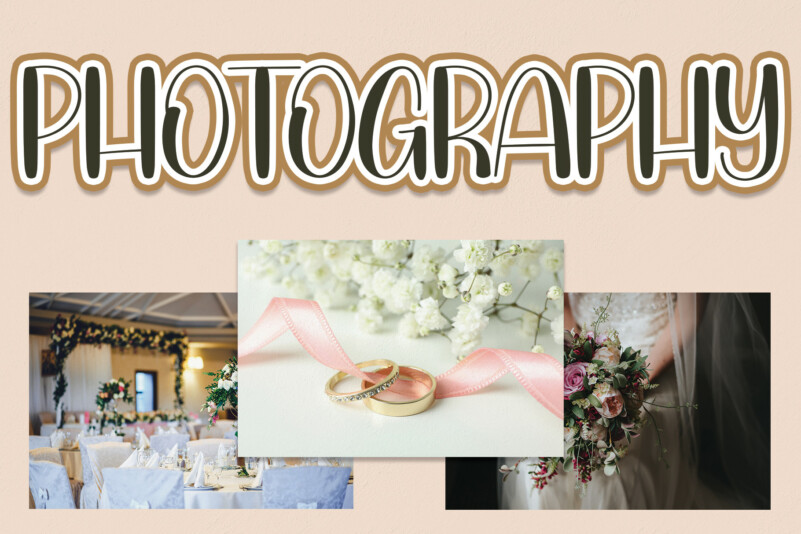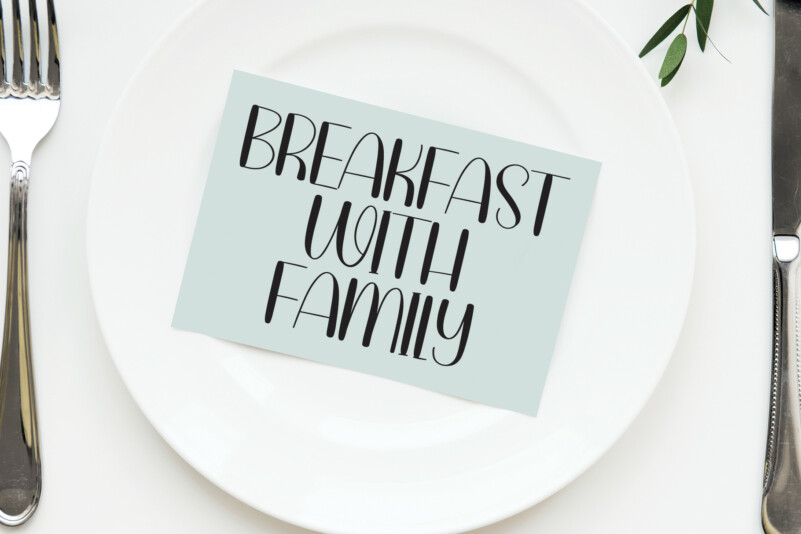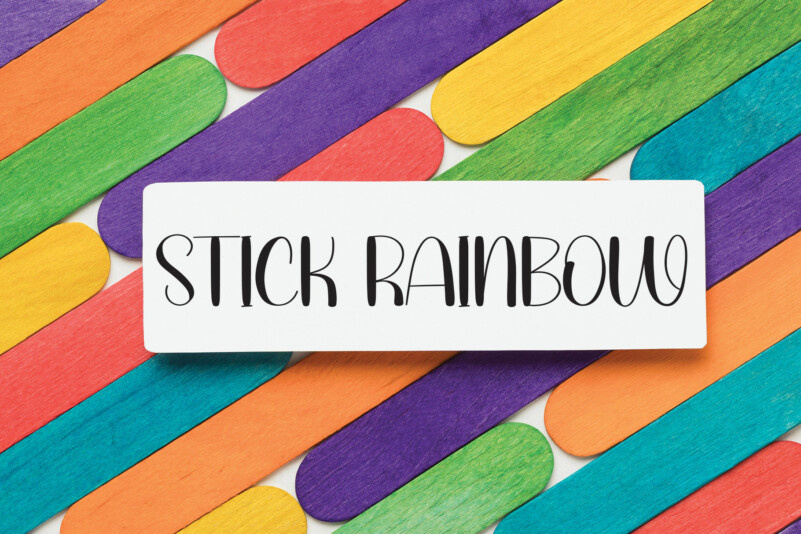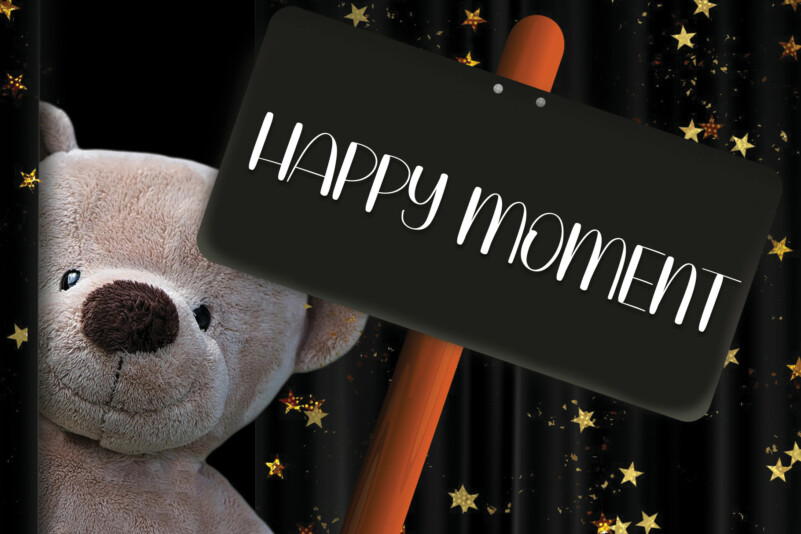
Hot Food Display Font
Hot Food Display Font is a bold and unique handwritten font. Its latest style letters are perfect for wall displays, wedding invitations, social media posts, logos, advertisements, product packaging, product designs, labels, photography, watermarks, invitations, stationery, and any project that requires a handwritten taste.